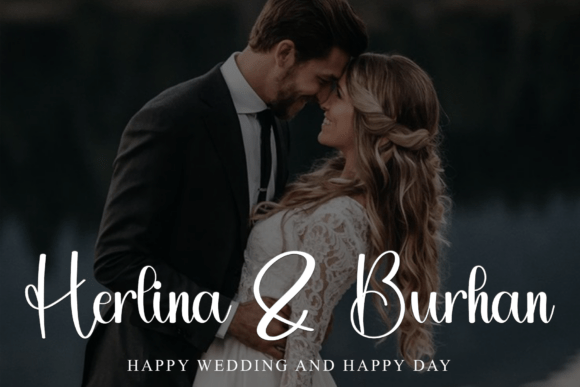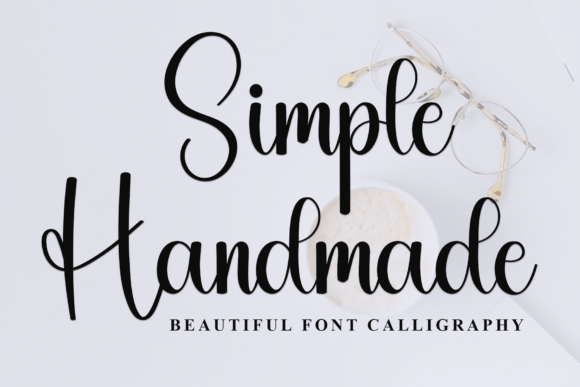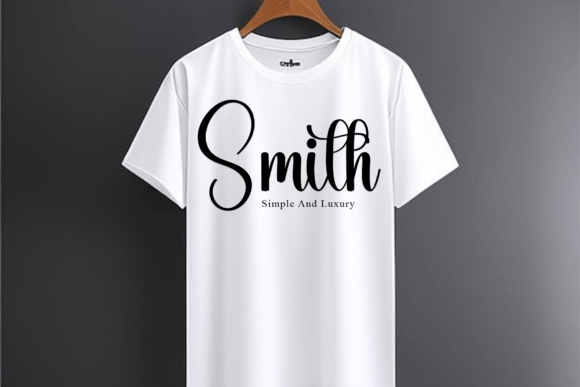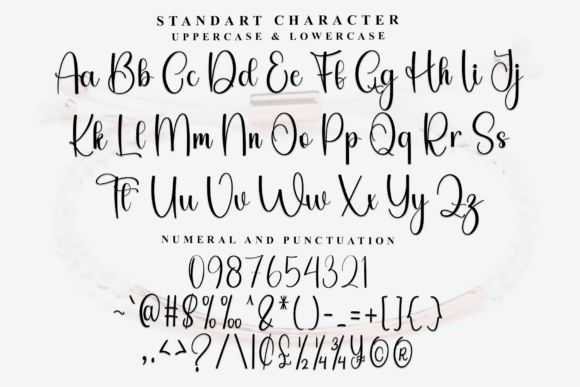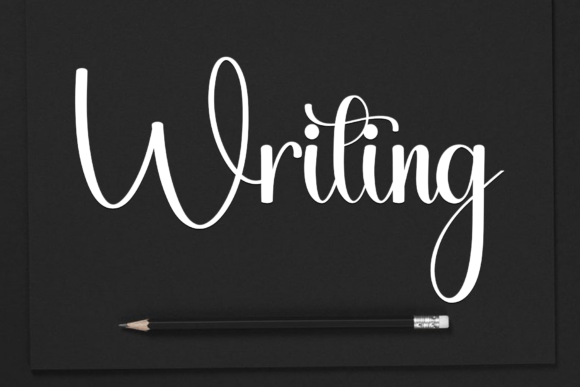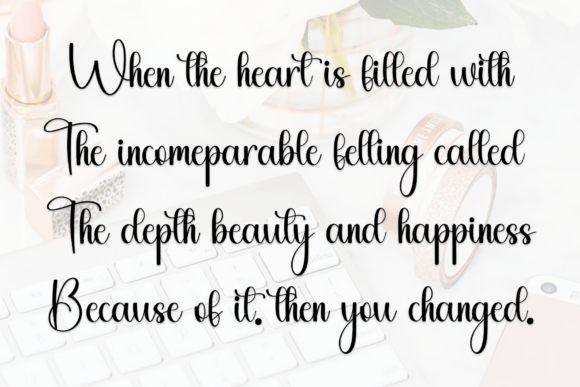
Discover the Charm of Allisa Font: A Casual and Creative Companion for Designers and Crafters
In the world of typography, fonts play a crucial role in conveying the tone and personality of a design. For those seeking a font that exudes warmth, friendliness, and a touch of playfulness, Allisa Font is an excellent choice. This casual and creative font is perfect for personal projects, invitations, social media graphics, and any design that requires a relaxed and approachable feel.
The Allisa Font Difference: Round, Playful Strokes
Allisa Font stands out with its round, playful strokes that create a charming and inviting aesthetic. The font’s hand-drawn design gives it a unique and fun personality, making it ideal for designers and crafters who want to add a personal touch to their work. Whether you’re creating a birthday invitation, a social media post, or a personal blog, Allisa Font is sure to bring a smile to your audience’s faces.
Perfect for Personal Projects and Designs
Allisa Font is designed to be versatile and adaptable, making it perfect for a wide range of personal projects and designs. Here are some ideas to get you started:
• Personal invitations: Use Allisa Font to create beautiful and unique invitations for birthdays, weddings, baby showers, and other special occasions.
• Social media graphics: Add a touch of personality to your social media posts with Allisa Font. It’s perfect for creating engaging and shareable content.
• Blogging: Use Allisa Font to create a friendly and approachable tone for your blog. It’s ideal for lifestyle, fashion, and food bloggers who want to connect with their audience.
• Crafting: Allisa Font is a great choice for crafters who want to add a personal touch to their projects. Use it to create labels, signs, and other embellishments for your crafts.
Technical Details: PUA Encoded Glyphs
Allisa Font offers several benefits for designers and crafters, including:
• Easy to read: Allisa Font is designed to be easy to read, even at small sizes. This makes it perfect for body text, captions, and other applications where readability is key.
• Highly versatile: Allisa Font can be used for a wide range of design projects, from personal invitations to social media graphics.
• Unique and creative: Allisa Font’s hand-drawn design gives it a unique and creative personality, making it perfect for designers and crafters who want to stand out from the crowd.
In conclusion, Allisa Font is a charming and creative font that’s perfect for designers and crafters who want to add a personal touch to their work. Its round, playful strokes create a relaxed and approachable feel, making it ideal for personal projects, invitations, social media graphics, and more. With its standard PUA Encoded glyphs and compatibility with various software, Allisa Font is a versatile and practical choice for any design project.